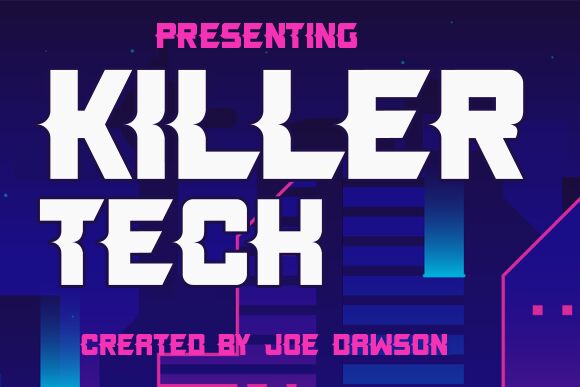
Killer Tech is a cool, bold, and dynamic display font designed by Joseph Dawson. This font is ideal for writing web designs, business cards, or pretty much anything else that requires a unique touch.
Killer Tech